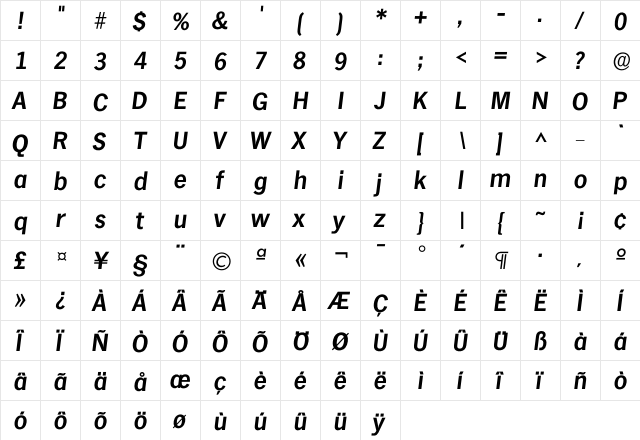
Ihamburg DemiBold
Design Context for Ihamburg Typeface
Ihamburg offers clean, dependable letterforms without strong stylistic allegiance, making it a practical choice for designers who need flexibility. The heavy weight commands attention and anchors typographic hierarchies.
Pro Tip: Pair Ihamburg with a font of contrasting weight or personality to build a more expressive typographic hierarchy.